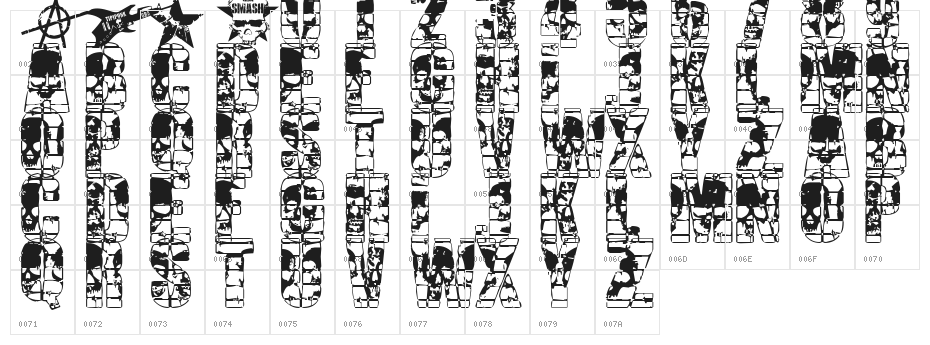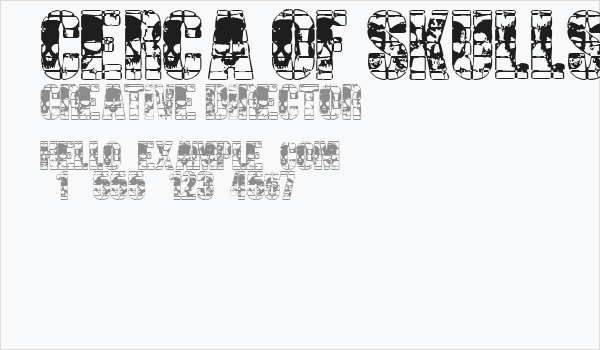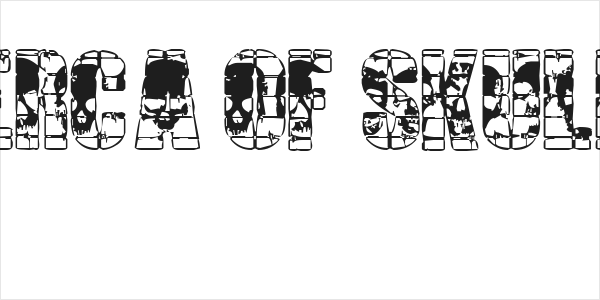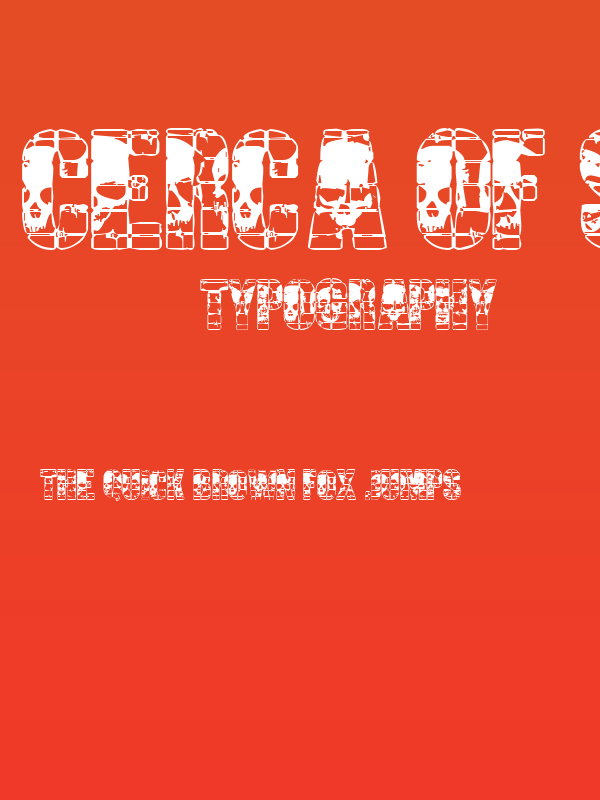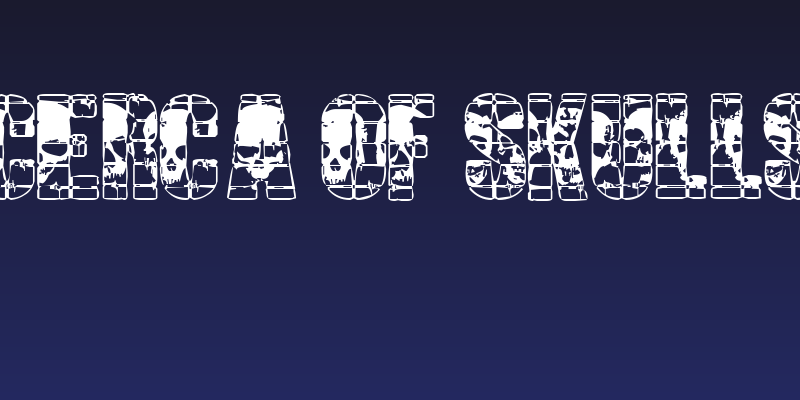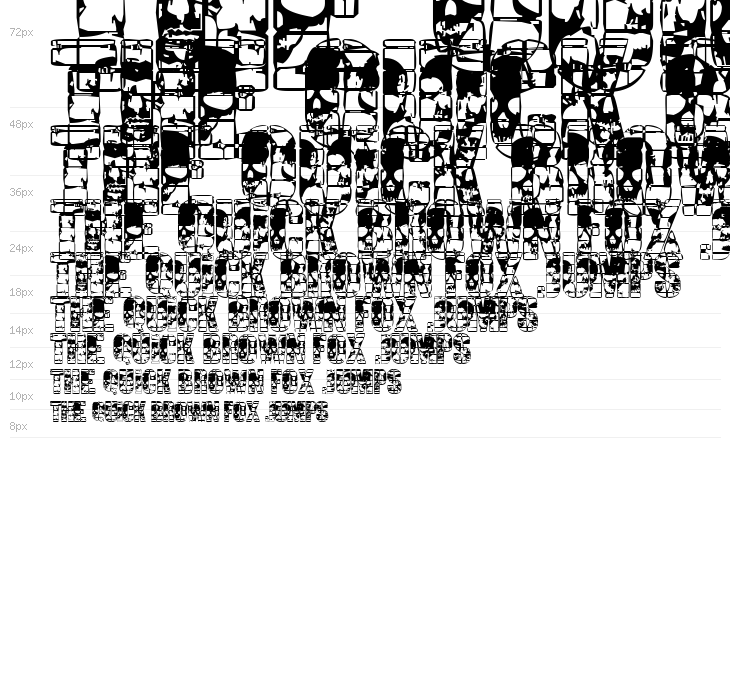
CERCA OF SKULLS Font
CERCA OF SKULLS Description
This font features a bold and striking design with a unique skull pattern embedded within each character. The uppercase and lowercase letters, as well as numbers, are filled with intricate skull illustrations, creating a visually impactful and edgy appearance. The font is highly decorative, making it ideal for projects that require a strong visual statement. The characters are well-defined, with a consistent pattern throughout, ensuring readability despite the complex design. This font is perfect for themes related to rock music, Halloween, or any project that seeks to convey a sense of rebellion or alternative style.
| Proposed Projects | Ideal for rock band logos, Halloween event posters, edgy apparel designs, and alternative magazine covers. |